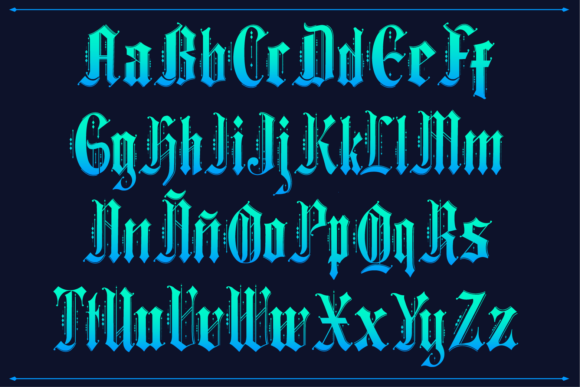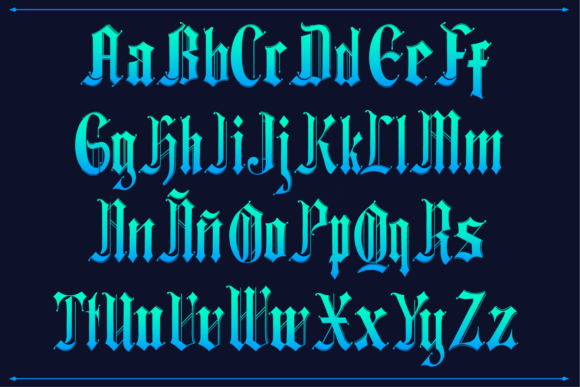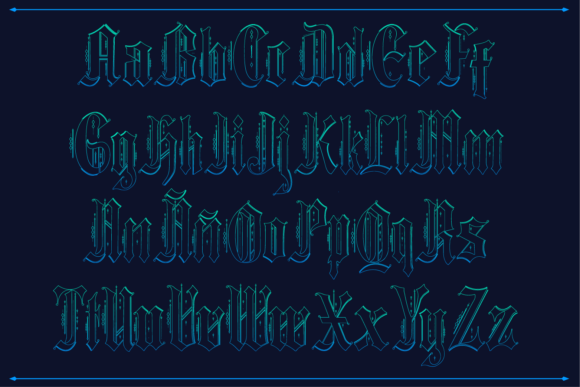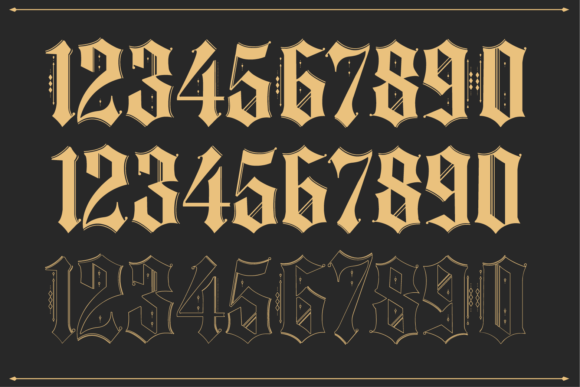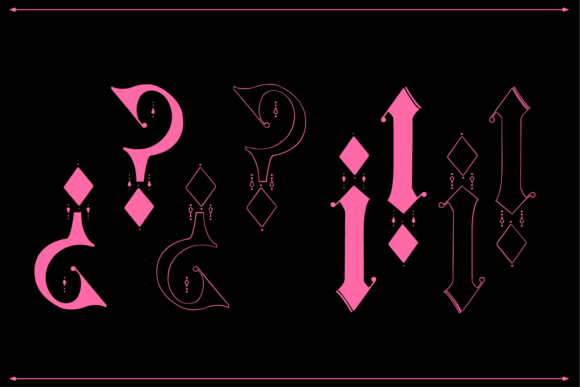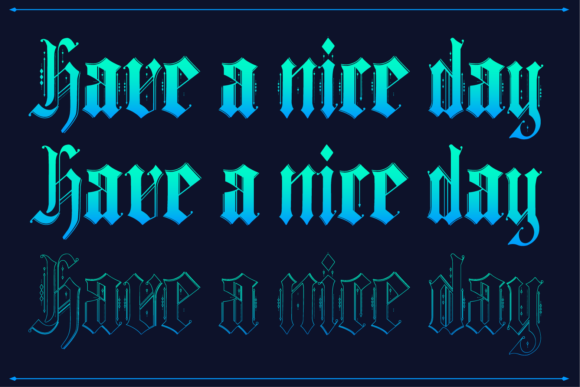
Ethelvina Font: A Timeless Classic with a Medieval Twist
In the world of typography, few fonts have managed to capture the essence of a bygone era while still feeling remarkably contemporary. Ethelvina font is one such typeface that has successfully achieved this feat. With its unique blend of medieval charm and modern flair, Ethelvina has become a favorite among designers and crafters looking to add a touch of elegance and sophistication to their projects.
The Origins of Ethelvina
Ethelvina font is a classic display font that radiates a unique, medieval look. Its design is inspired by the ornate lettering of the Middle Ages, with intricate details and flourishes that evoke a sense of nostalgia and tradition. However, despite its historical roots, Ethelvina still manages to feel quite contemporary, giving this typeface a versatile quality that makes it suitable for a wide range of applications.
Ethelvina font boasts a distinctive design that sets it apart from other typefaces. Its letters are adorned with intricate serifs, ornate swashes, and elegant flourishes, giving it a luxurious and refined appearance. The font’s x-height is moderate, with a subtle contrast between thick and thin strokes that adds to its classic feel. Ethelvina’s characters are also designed to be highly legible, making it an excellent choice for use in titles, headings, and other display text.
Versatility and Applications
One of the key benefits of Ethelvina font is its versatility. Its unique blend of medieval charm and modern flair makes it suitable for a wide range of applications, from traditional printing projects to digital designs. Here are some examples of how Ethelvina can be used:
- Wedding Invitations and Stationery: Ethelvina’s elegant design makes it perfect for use in wedding invitations, stationery, and other formal correspondence.
- Branding and Packaging: The font’s unique blend of medieval and modern elements makes it an excellent choice for brands looking to stand out from the crowd.
- Signage and Display Text: Ethelvina’s high legibility and ornate details make it well-suited for use in signage, titles, and other display text.
- Digital Designs: Ethelvina can be used in digital designs, such as social media graphics, blog headers, and website titles, to add a touch of elegance and sophistication.
Crafting with Ethelvina
Ethelvina font is not just limited to digital designs; it can also be used in various crafting projects. Here are some ideas:
- Hand Lettering and Calligraphy: Ethelvina’s intricate details and ornate flourishes make it an excellent choice for hand lettering and calligraphy projects.
- Paper Crafting: The font’s elegant design makes it perfect for use in paper crafting projects, such as card making, scrapbooking, and origami.
- DIY Signage: Ethelvina can be used to create beautiful, handmade signs for your home or business.
Ethelvina font is a timeless classic that offers a unique blend of medieval charm and modern flair. Its versatility, elegance, and sophistication make it an excellent choice for designers and crafters looking to add a touch of refinement to their projects. Whether you’re working on a traditional printing project or a digital design, Ethelvina is sure to impress. So why not give it a try and see how this beautiful font can elevate your designs?